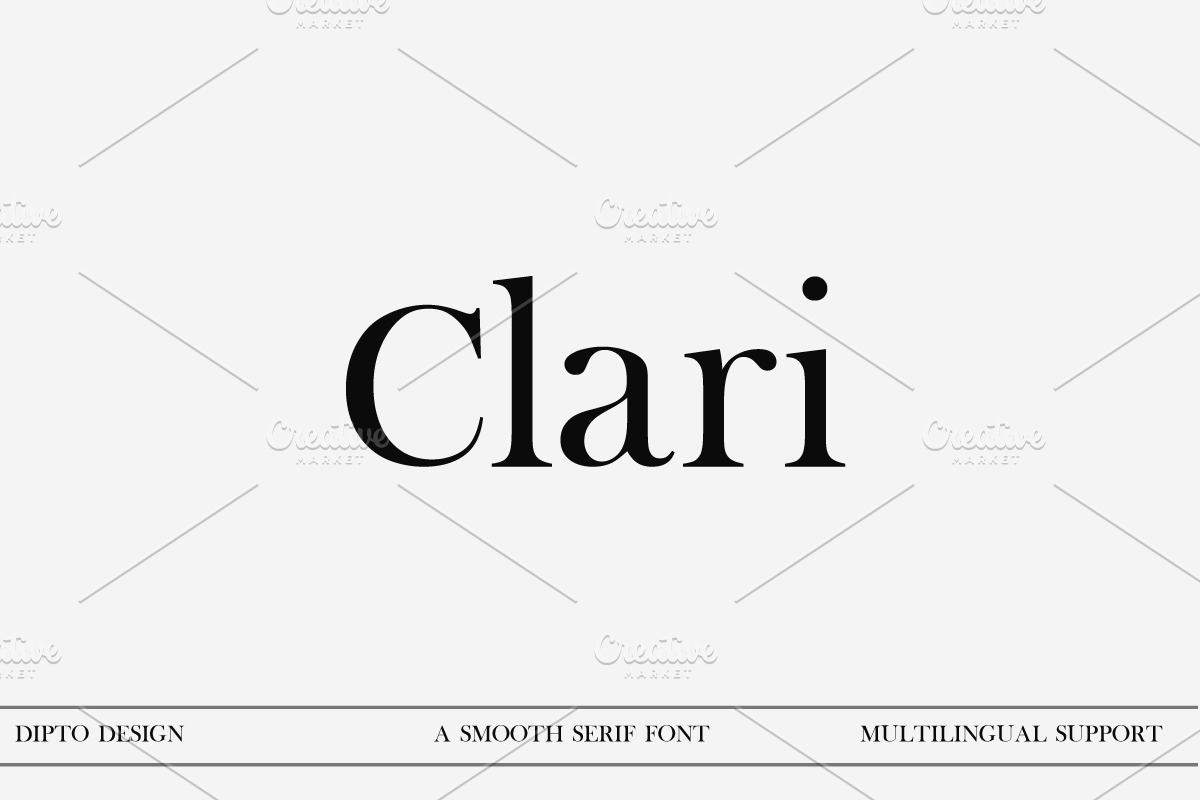
Clari – A Fashionable Font Free Download is a sleek and sophisticated typeface designed to bring elegance and modern style to your branding. With its refined curves, high-contrast strokes, and minimalist flair, Clari is ideal for fashion editorials, beauty branding, boutique logos, high-end packaging, and stylish social media graphics.
This font exudes confidence and class, making it perfect for design projects that aim to be both timeless and trendy. Whether you're creating a logo for a luxury brand or a lookbook for a new collection, Clari adds a touch of high fashion to every letter.